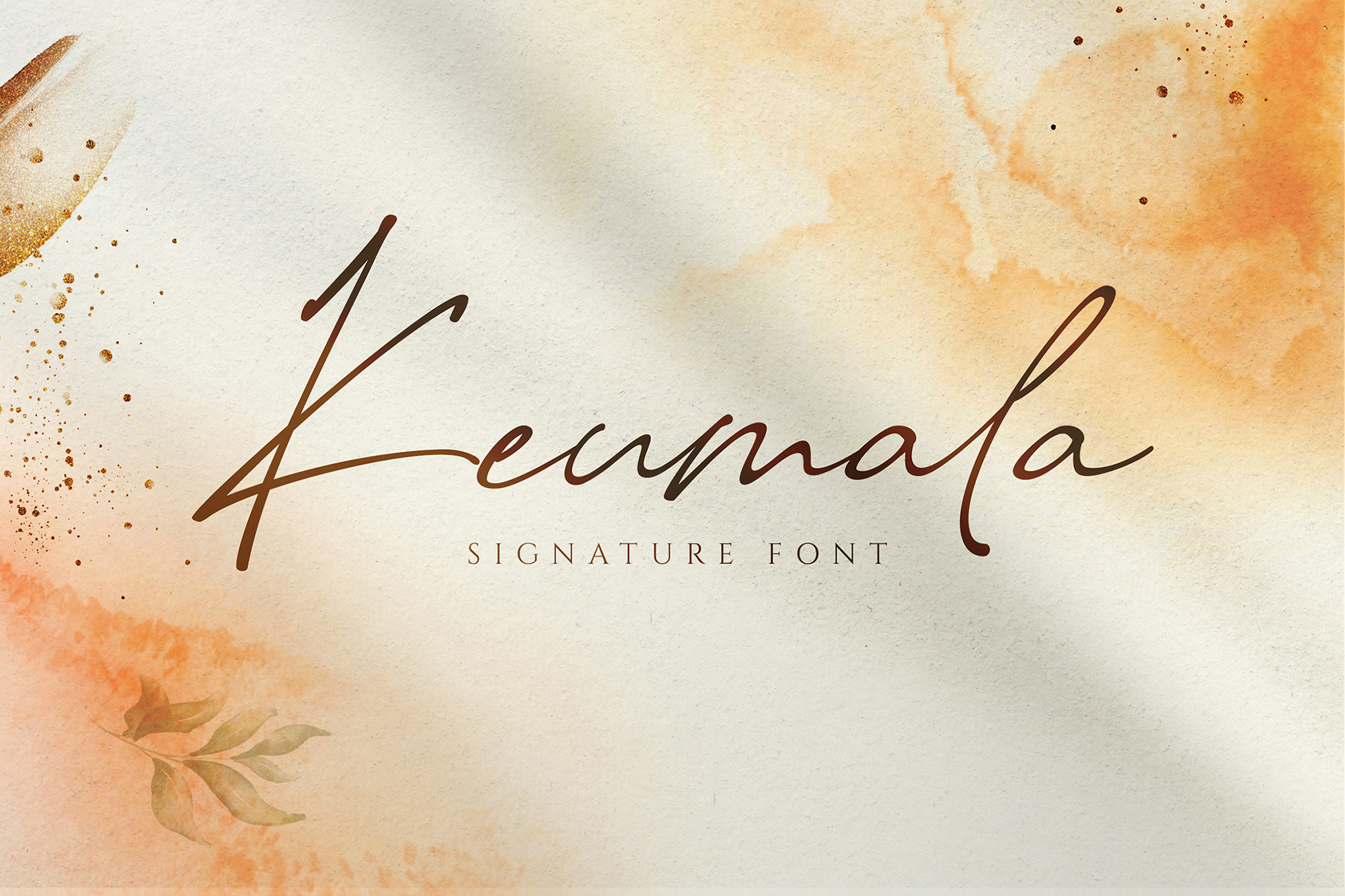
Keumala - Special Signature Script
We are introducing our Signature font, which goes by the name Keumala. We hope this font makes the signature logo and watermark for your agency and product look flawless and eye-catching. We make it natural, elegant, professional and unique.
- Uppercase Characters
- Lowercase Characters
- Punctuation, Numerical, Ligatures, Alternate
- Multilingual support for various languages including: French, German, Spanish, Portuguese, Italian, Dutch, Finnish, Swedish, and more.